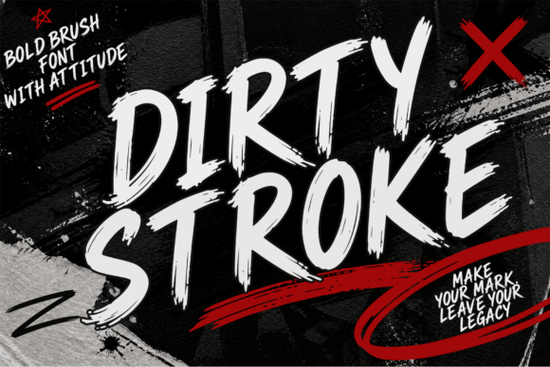
If you're looking for a brush font that feels alive rough, expressive, and full of movement Dirty Stroke Font fits the bill without overcomplicating things. It’s not polished or sterile; it’s drawn with intention, using uneven pressure, visible texture, and confident strokes. That makes it especially useful when you want your headlines, social graphics, or product labels to stand out in a crowded feed or on physical merchandise. Think t-shirt designs, Instagram story banners, café chalkboard menus, or even hand-lettered wedding invites where personality matters more than perfection.
What makes Dirty Stroke different from other brush fonts?
Most brush fonts mimic calligraphy or smooth ink flow but Dirty Stroke leans into imperfection. Its edges are slightly frayed, its curves have subtle wobble, and its swash characters (like extended terminals on uppercase “S” or looping “Q”) add flair without feeling forced. Unlike fonts built for readability at small sizes, this one shines large: 48pt and up, especially against bold color backgrounds or textured paper mockups. You’ll notice how well it pairs with minimal layouts just the font, clean negative space, and maybe one accent shape or photo overlay.
The included swash alternates aren’t just decorative extras. They’re practical: swap in a dramatic “T” or “R” to break visual rhythm in a logo lockup, or use them as standalone design elements in SVG cut files for vinyl or Cricut projects. Since it’s a single-style font (no light/medium/bold variants), consistency is built in you don’t have to worry about matching weights across layers.
Who uses Dirty Stroke and where does it work best?
Print-on-demand sellers often choose Dirty Stroke Font for vintage-inspired apparel lines, especially when targeting audiences who respond to authenticity over slickness think indie music merch, coffee brand slogans, or retro gym posters. Crafters building digital scrapbooking kits or printable wall art also appreciate how easily it layers with watercolor PNGs or grainy overlays.
Small business owners running local boutiques or food trucks find it works well for temporary signage chalkboard-style flyers, window decals, or even embroidered patches because it reads clearly from a distance and carries warmth without being childish. Designers working on branding for creative studios, podcast covers, or event promotions use it to signal energy and approachability at a glance.
How does it compare to other popular script fonts on Creative Fabrica?
While Quincy Font offers elegant, flowing connections ideal for weddings or luxury packaging, Dirty Stroke sits at the opposite end of the spectrum: unrefined and direct. Dream Wish Font leans dreamy and airy, great for soft aesthetics but if your brand voice is louder or more grounded, Dirty Stroke delivers more presence. Winky Swing Font has bounce and playfulness, while Child Font feels handmade and gentle both lovely for kid-focused projects, but less suited to bold statements. And unlike Randy Sofia Font, which balances polish with personality, Dirty Stroke doesn’t try to please everyone it commits to its character.
- Test it at 60–90pt first smaller sizes lose impact and legibility suffers, especially with swashes enabled.
- Use OpenType features (if your software supports them) to access alternate characters and swash variations directly not all apps show these by default.
- Pair it with a simple sans-serif (like Montserrat or Inter) for body text contrast helps both fonts breathe.
- When cutting vinyl or plotting with a machine, simplify paths in vector editors first some swash details may need manual cleanup for clean cuts.
If you’ve tried other brush fonts that felt too stiff or too fussy, give Dirty Stroke Font a test run on your next headline-heavy layout. It won’t fix weak copy or poor composition but it will make strong ideas feel even more immediate and human.